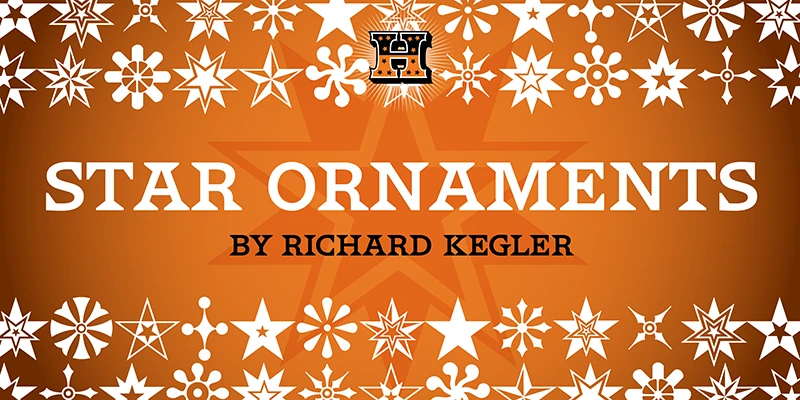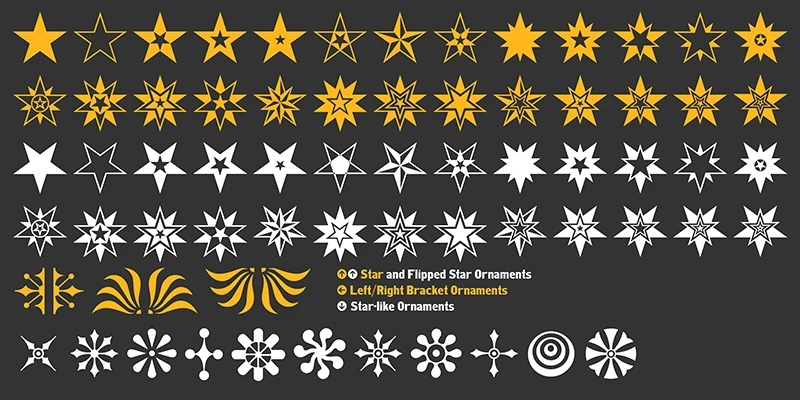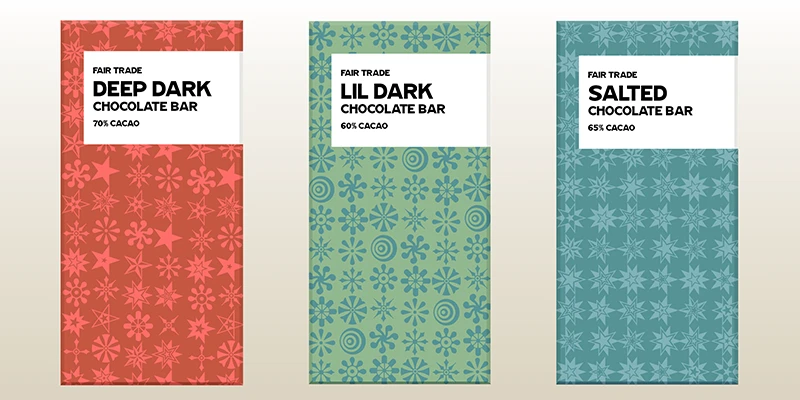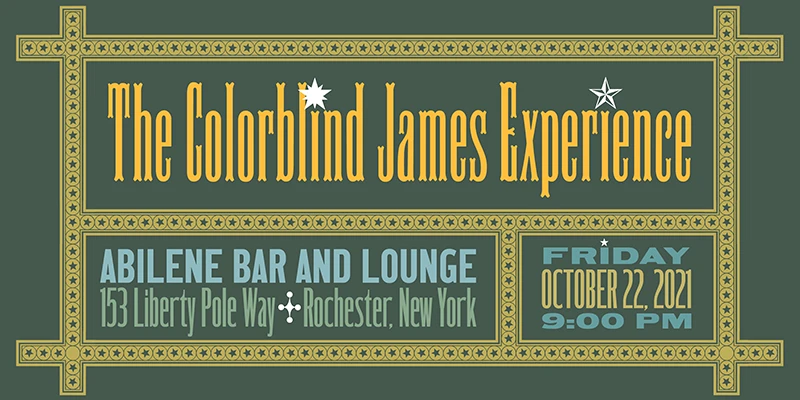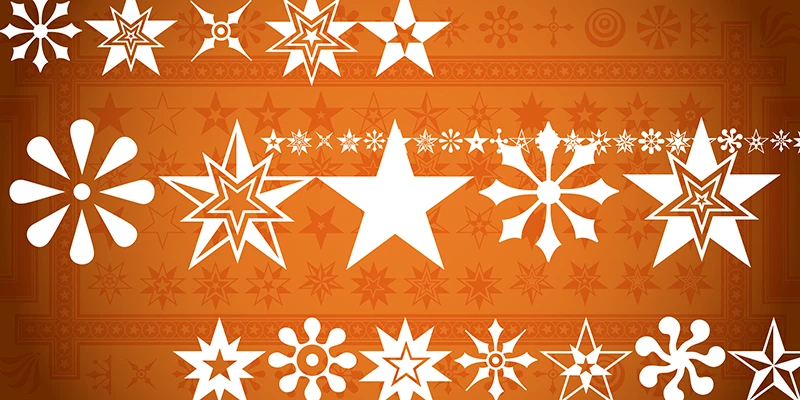
Star Ornaments
From Hamilton Wood Type Collection
HWT Star Ornaments, curated by typographic sage Richard Kegler, offers a mixed collection of historical ornaments ideal for modern design. With dozens of stars in two orientations, typographic whirligigs, ornamental brackets, and a versatile modular border system, these elements can be used for illustrations, patterns, or map markers. The modular border pieces, including stars and stripes, come with connectors and endings for creating intricate designs, from letters to free-form frames.
Designed by Richard Kegler